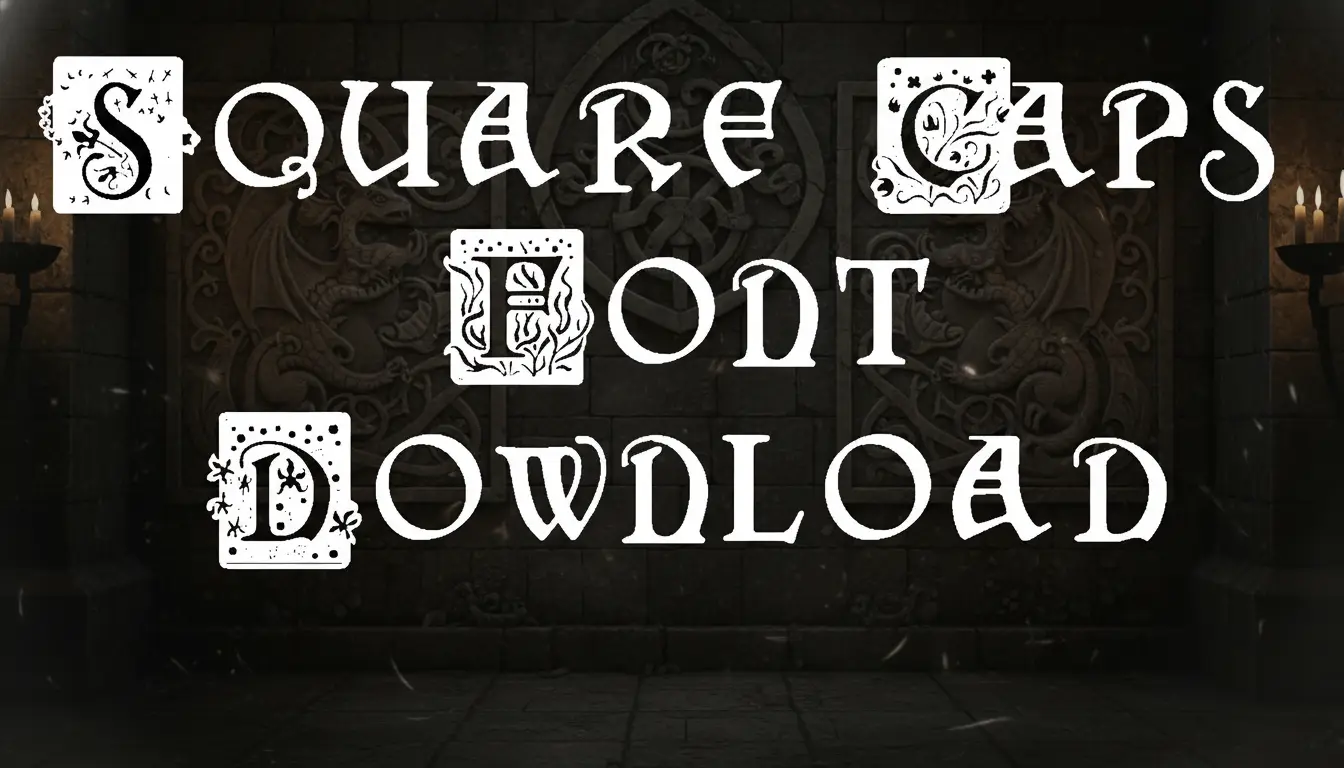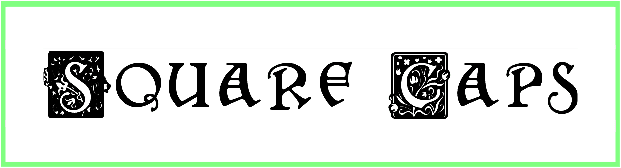
Square Caps Font
Square Caps
Square Caps is a gothic font. Sharp, dark and dramatic, it follows the blackletter tradition of old European manuscripts. It's a free download, and you can try it with your own text in the preview above first.
Square Caps has the full alphabet in upper and lowercase. There are no numbers, so you'll need a second font for dates, prices or phone numbers. Punctuation is limited, so look at the character map if you need a specific symbol. There are no accented letters like é or ñ, so it's best kept to English text.
Designers usually reach for fonts like Square Caps when they're making tattoos, metal band logos and dark fantasy titles. Blackletter is very hard to read in all caps, so type in normal upper and lowercase.
No. Square Caps has no accented letters such as é, ñ or ü, so it's best for English text.